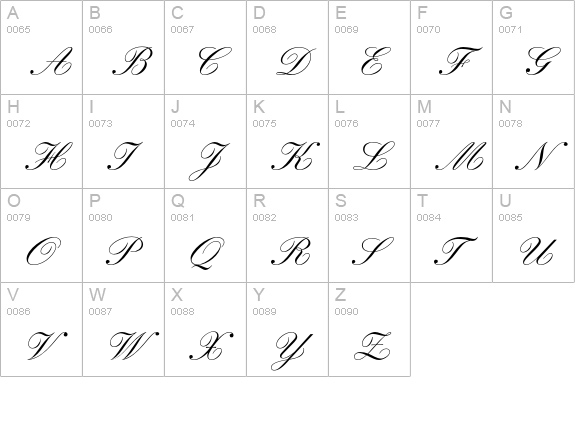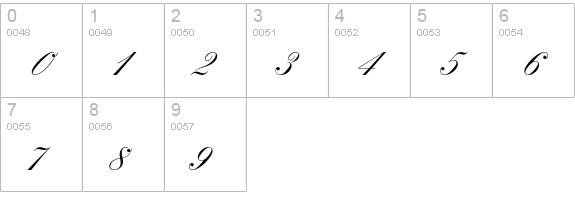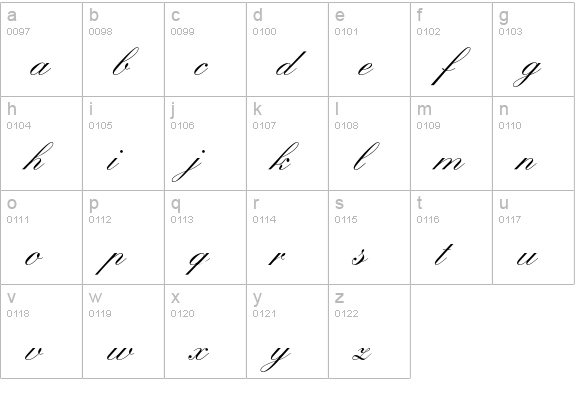
Kuenstler Script Medium is a balanced, medium-weight variant in the Kuenstler typeface family \xE2\x80\x94 well suited to sub-headlines, navigation, and balanced editorial work.
Kuenstler Script Medium is a graceful and elegant font that exudes sophistication and charm. Its flowing lines and delicate curves make it perfect for adding a touch of elegance to any project. This script font is versatile and can be used for a variety of design purposes, from wedding invitations to branding materials. What sets Kuenstler Script Medium apart is not only its beauty but also the fact that it is available for free. You can easily download this exquisite font at FontsMarket.com and elevate your designs with its timeless appeal. With Kuenstler Script Medium, you can effortlessly create stunning and memorable pieces that will leave a lasting impression.